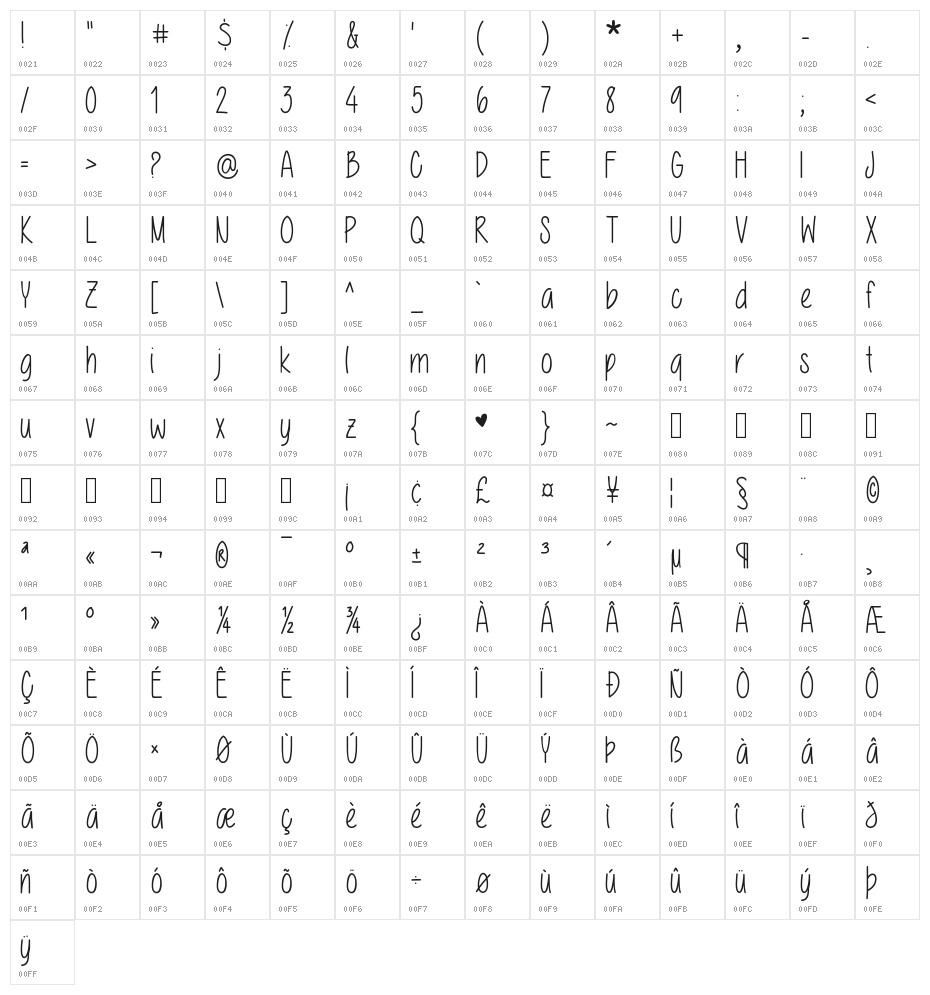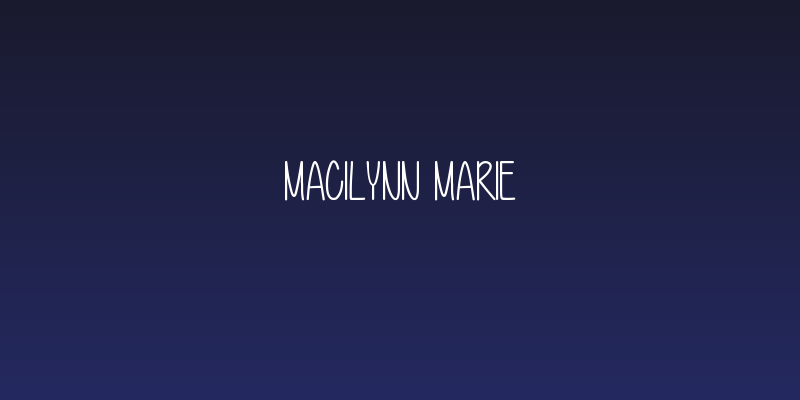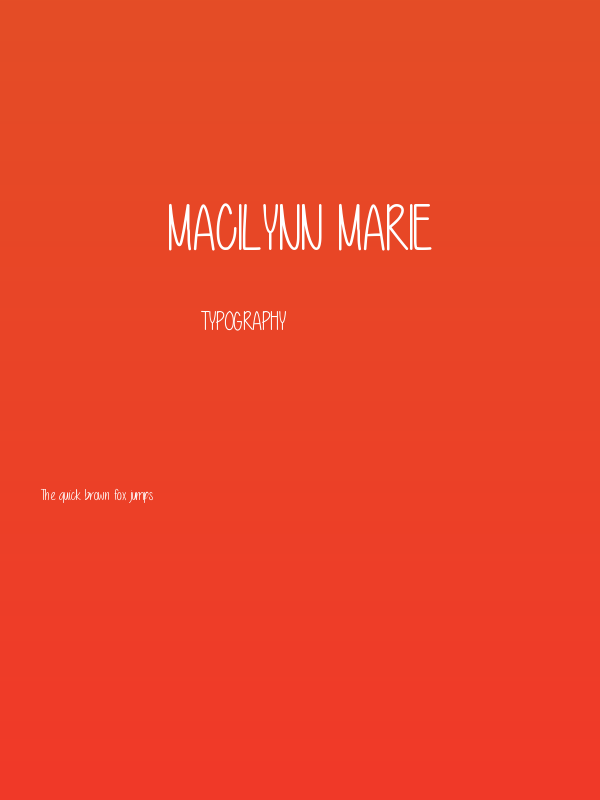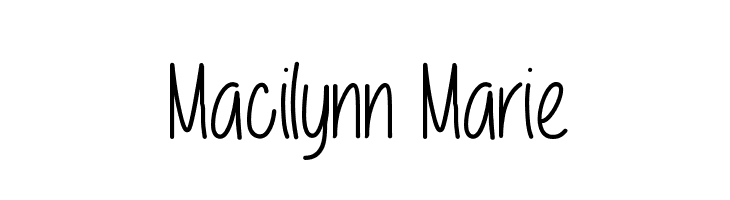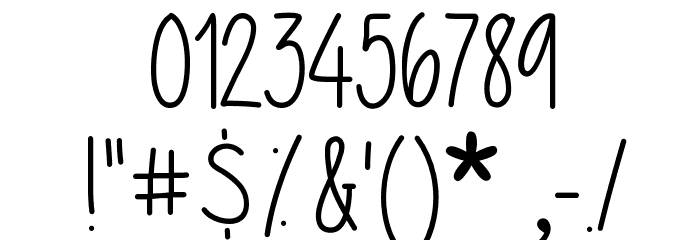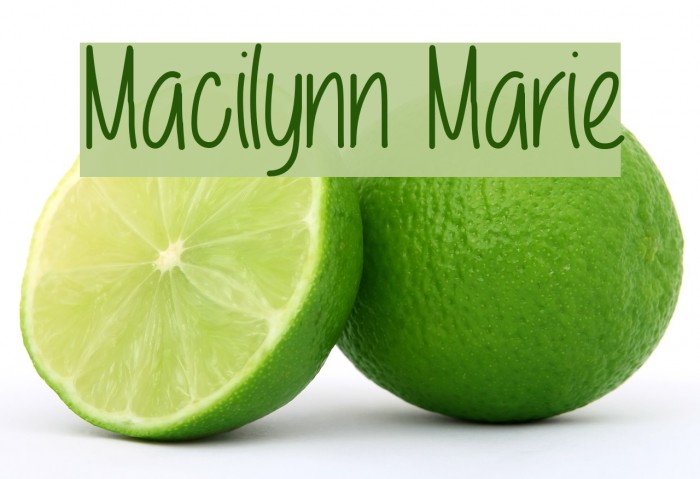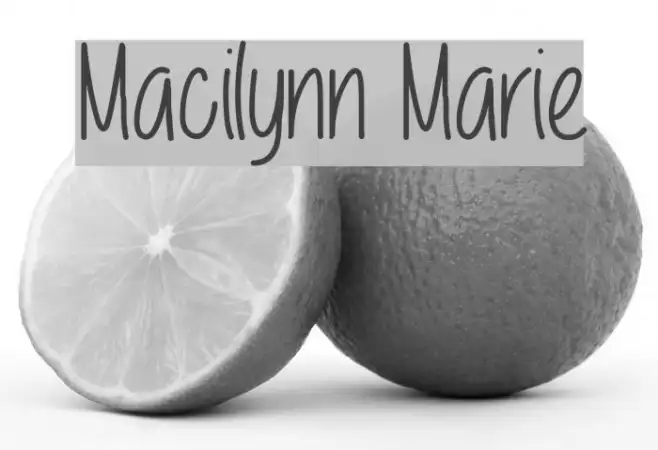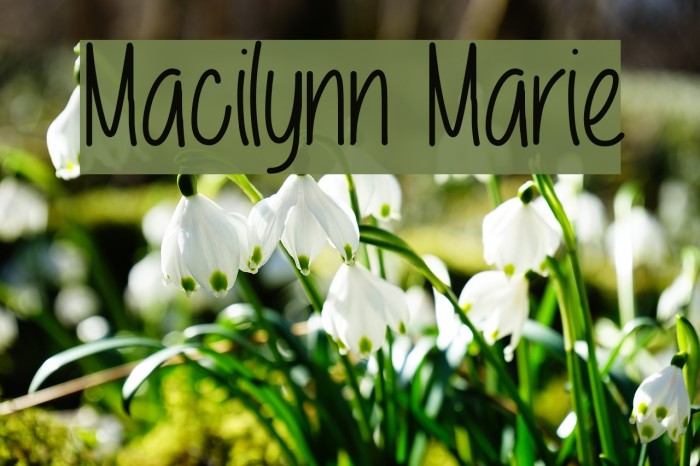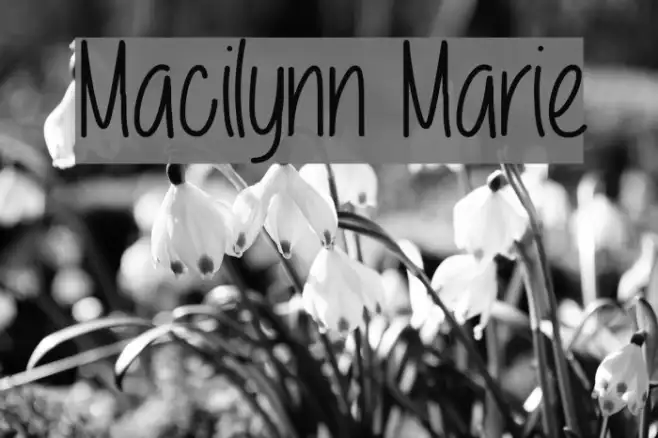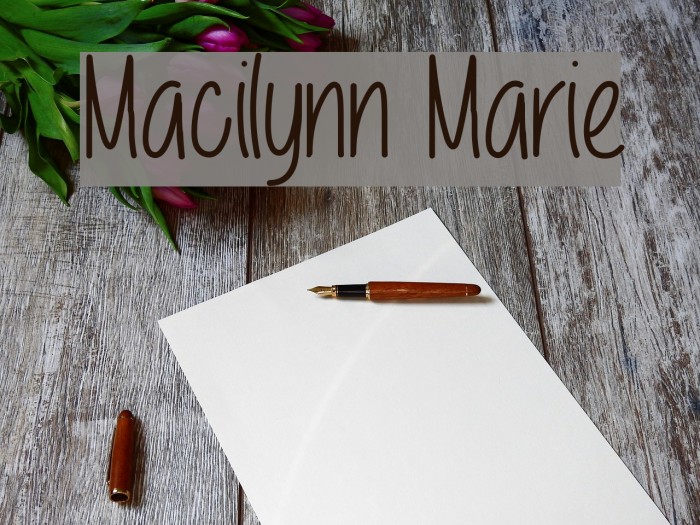
Macilynn Marie Font
Macilynn Marie Description
This font features a playful and casual handwritten style, characterized by its tall and narrow letterforms. The strokes are consistent in width, giving it a uniform appearance. The uppercase letters are slightly taller than the lowercase, adding to its informal charm. The numerals and special characters maintain the same playful aesthetic, making it versatile for various uses. The overall look is friendly and approachable, suitable for projects that require a personal touch.
| Proposed Projects | Ideal for greeting cards, children's books, casual invitations, and social media graphics. |